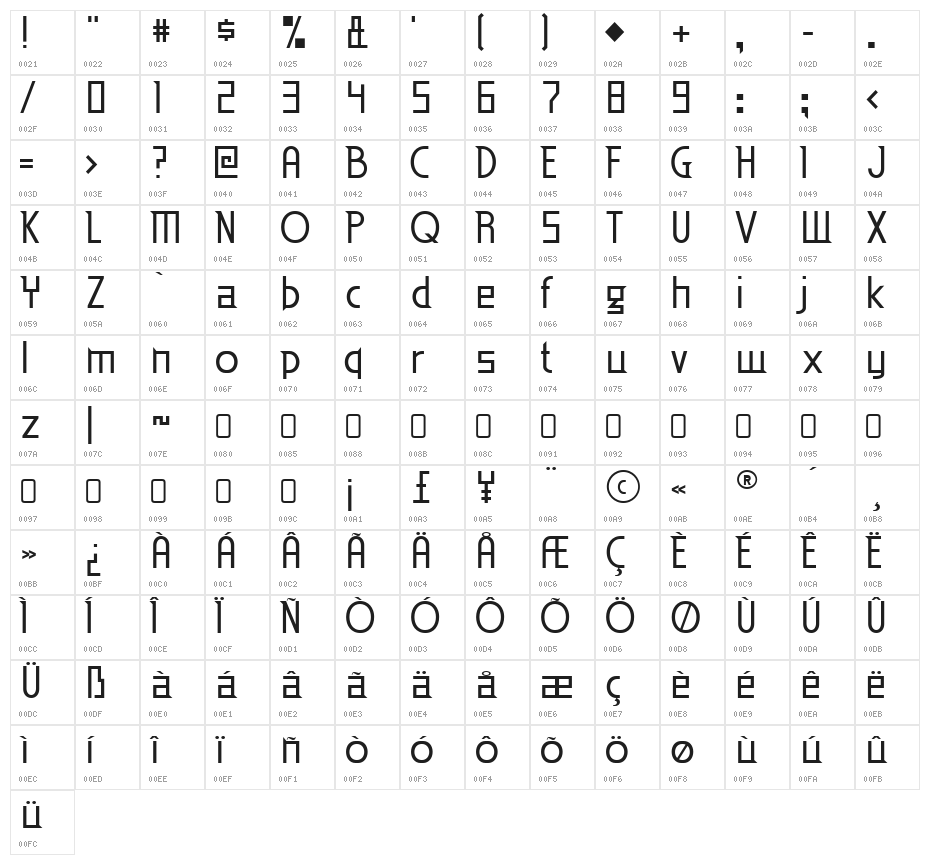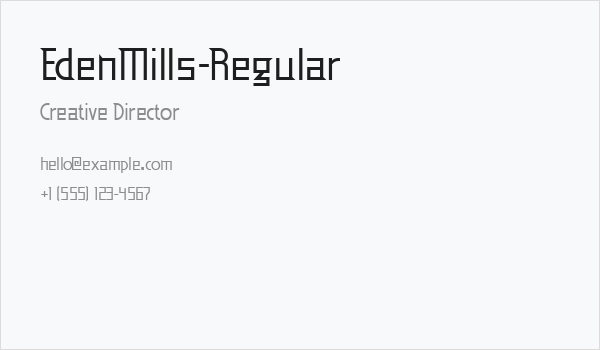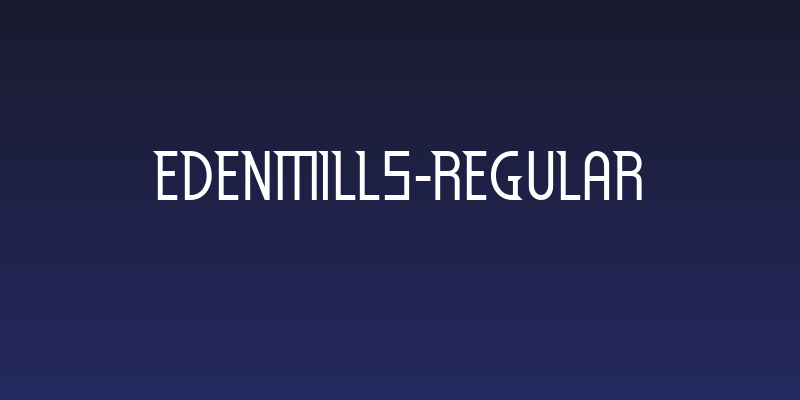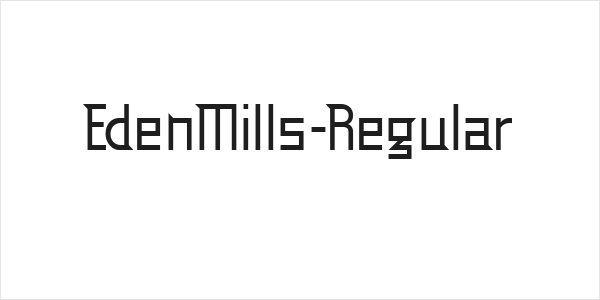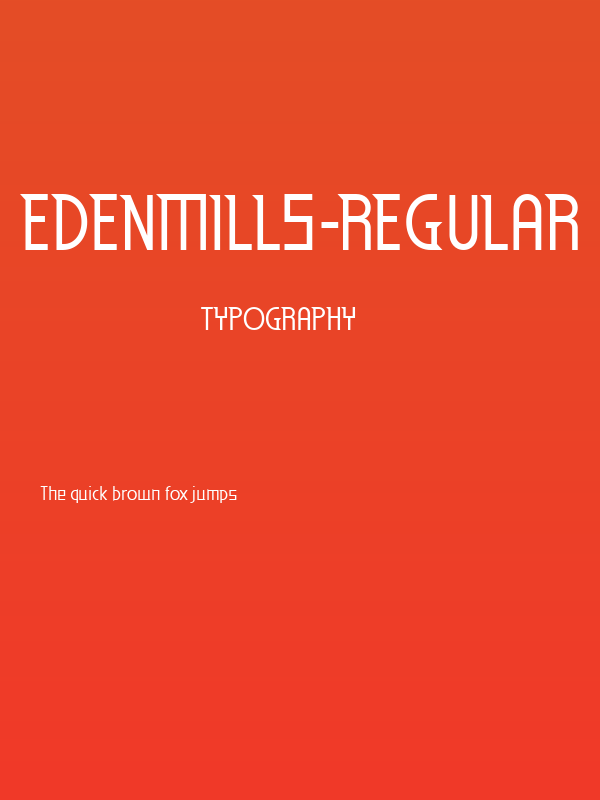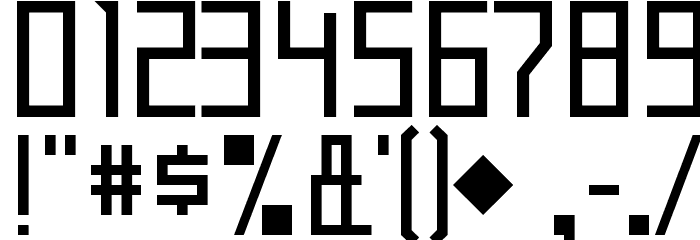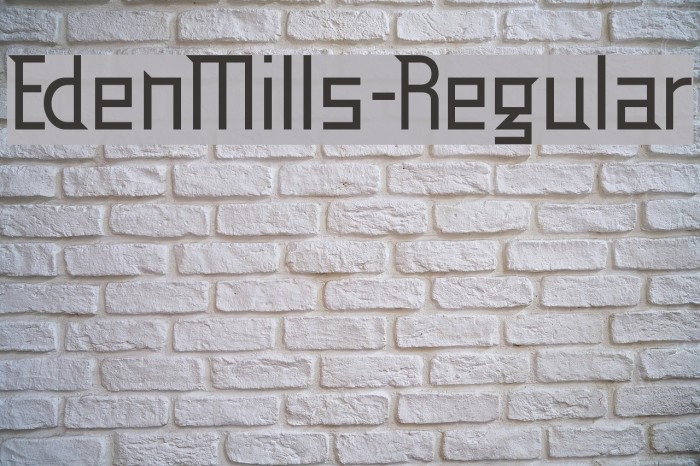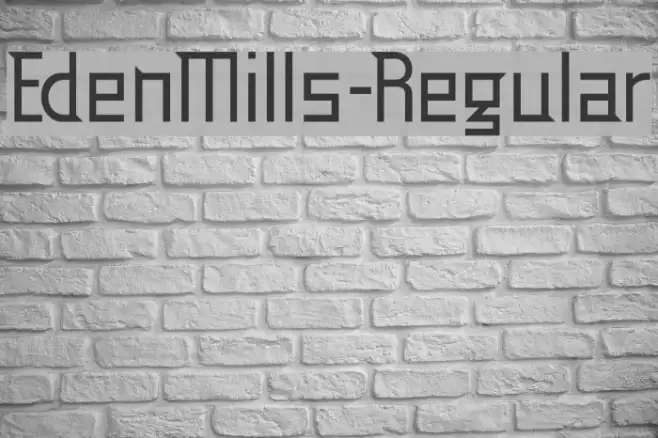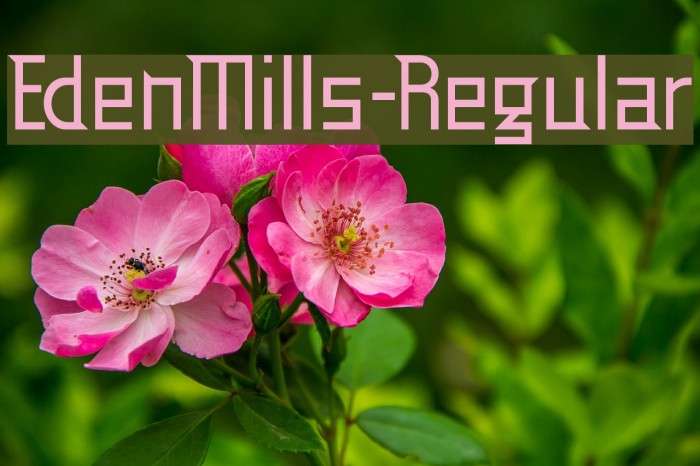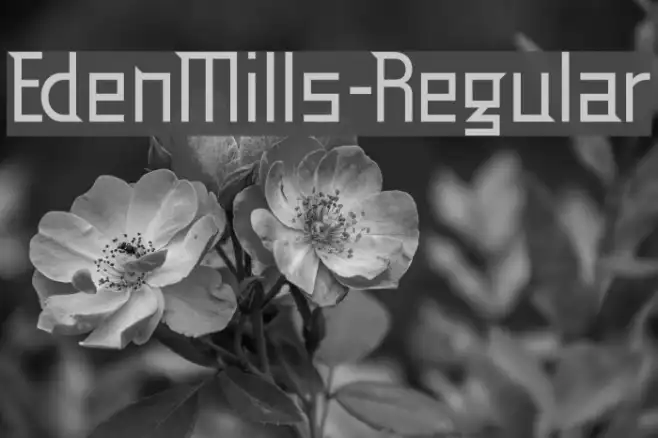
EdenMills-Regular Font
EdenMills-Regular Description
This font features a geometric and modern design with clean, straight lines and sharp angles. The uppercase letters are bold and have a uniform height, while the lowercase letters maintain a consistent style with slightly rounded edges. The numerals are distinct and easy to read, with a contemporary flair. Special characters are well-integrated, matching the overall aesthetic of the font. The design is versatile, suitable for both digital and print media, offering a sleek and professional appearance.
| Use Case | Headlines, Logos, Digital media |
| Proposed Projects | Ideal for branding, advertising, web design, and editorial layouts. |